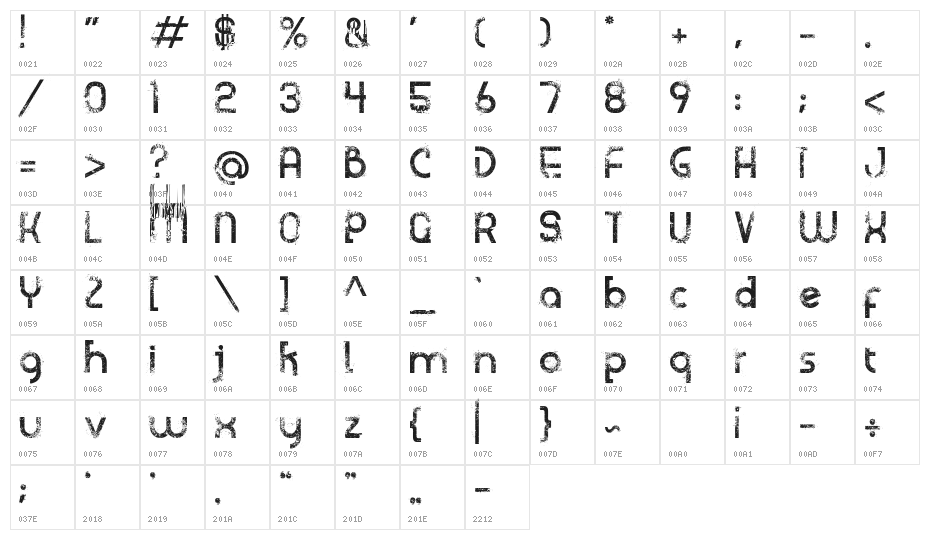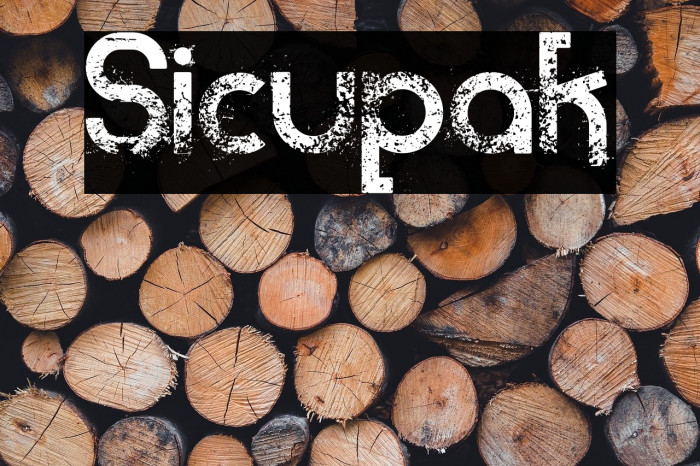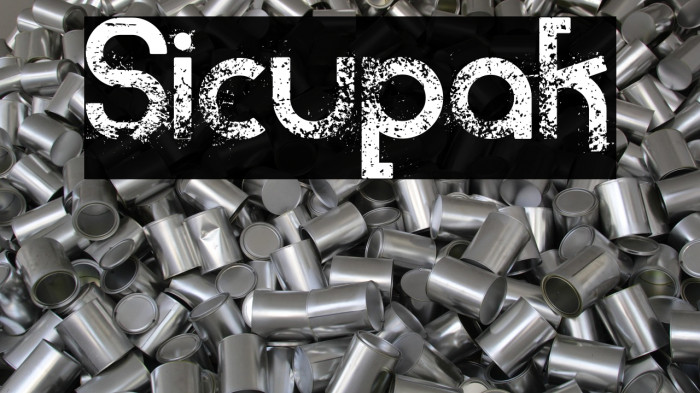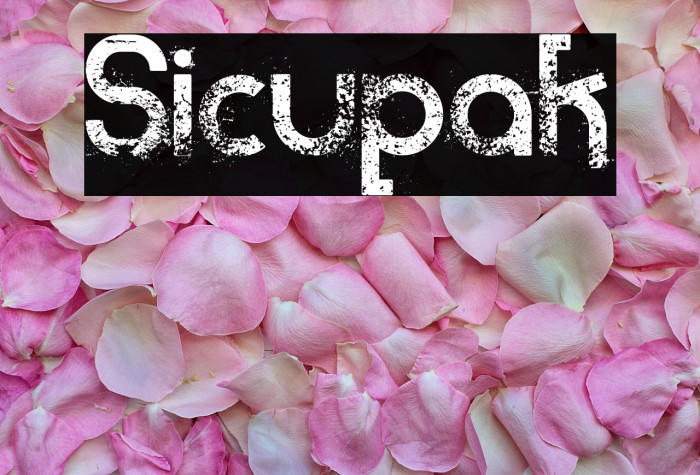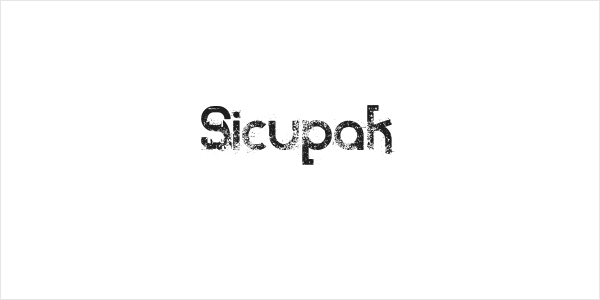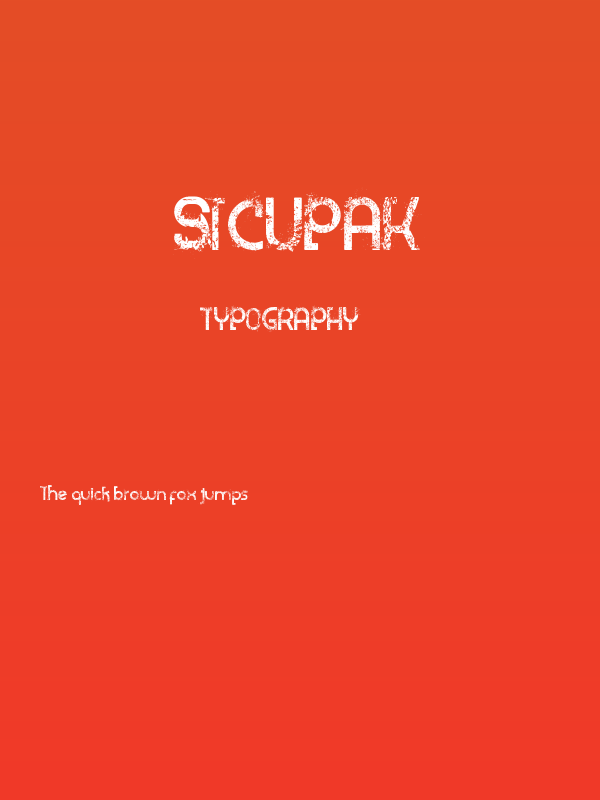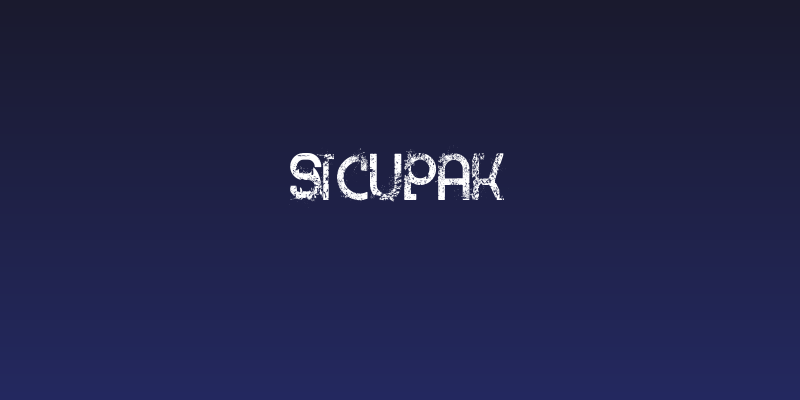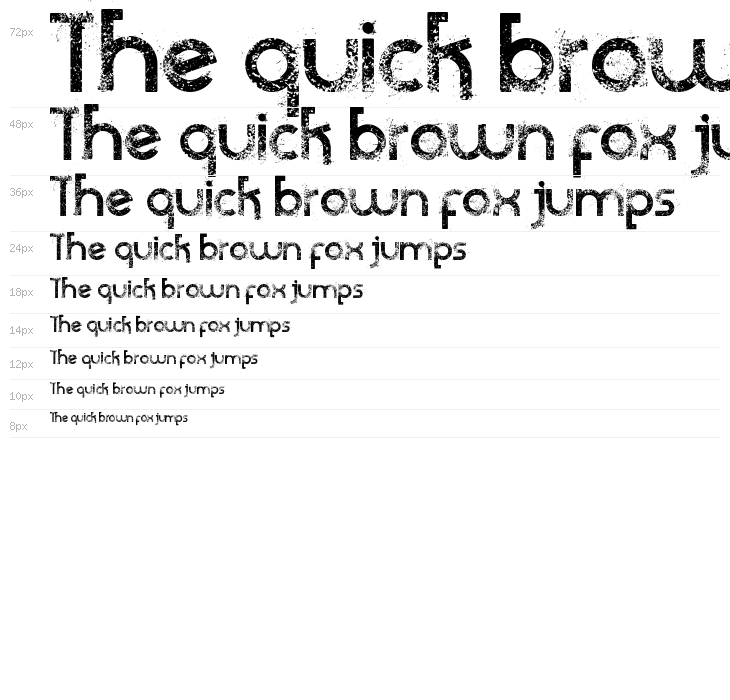
Sicupak Font
Sicupak Description
This font features a distressed, grunge style with a textured appearance that gives it a worn and rugged look. The characters are bold and sans-serif, with a uniform thickness that maintains readability despite the heavy texture. The uppercase and lowercase letters, along with numbers and special characters, all share this unique, weathered effect. The font's design is reminiscent of urban street art or vintage posters, making it ideal for projects that require a bold, eye-catching statement with an edgy vibe.
| Overall Style | Grunge, Urban, Vintage |
| Proposed Projects | Perfect for album covers, posters, streetwear branding, or any design needing a gritty, urban feel. |